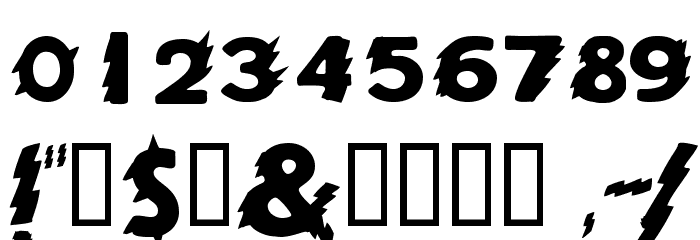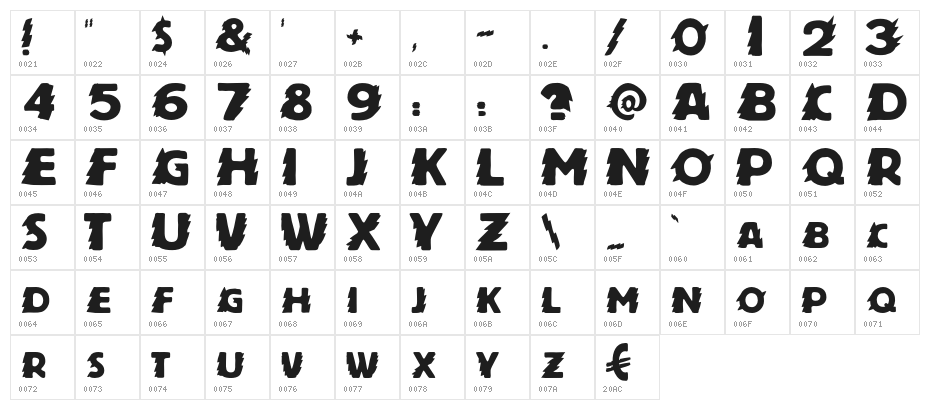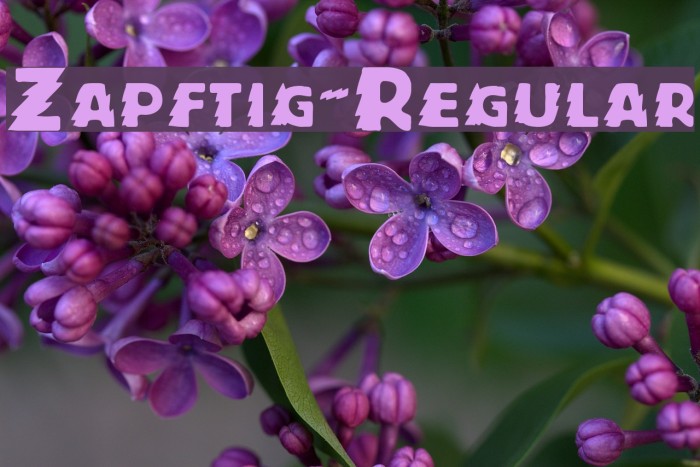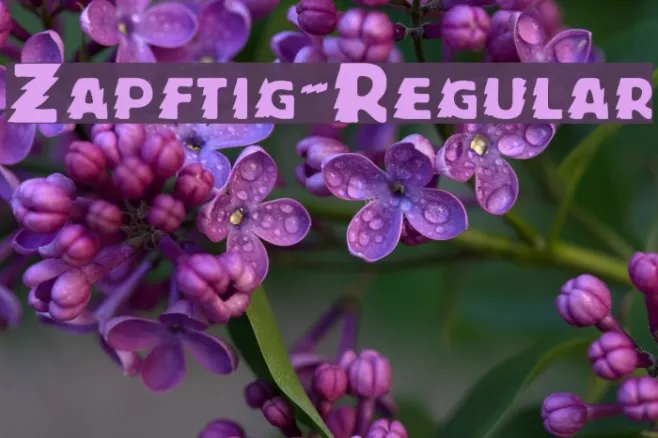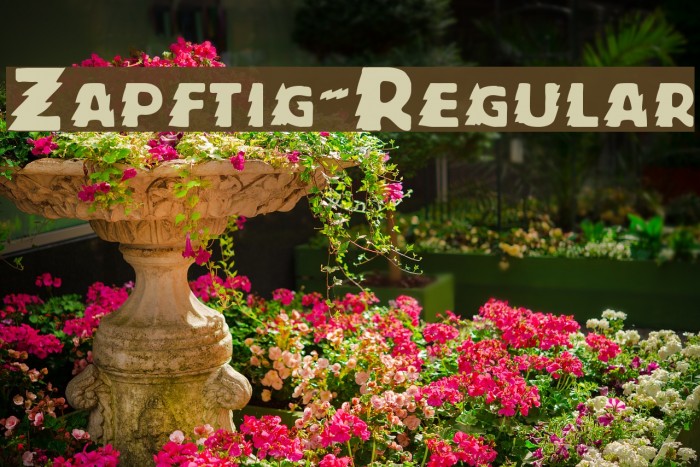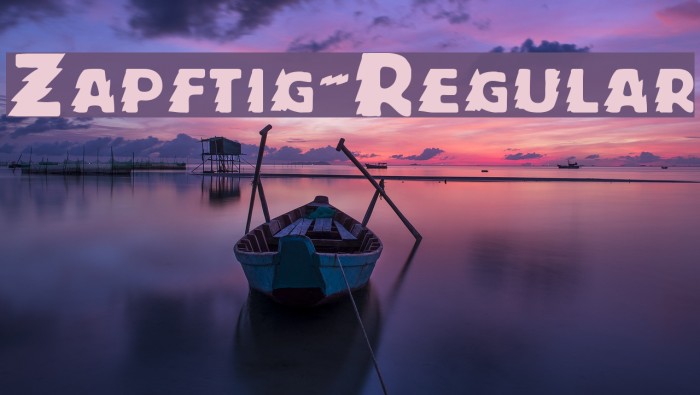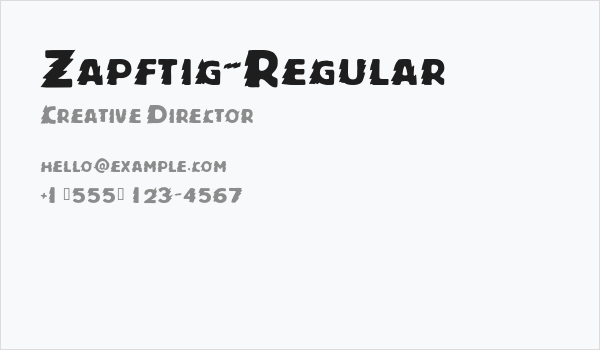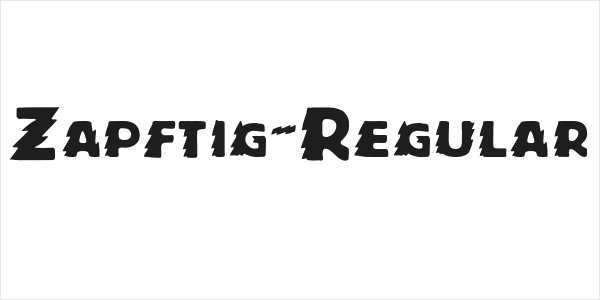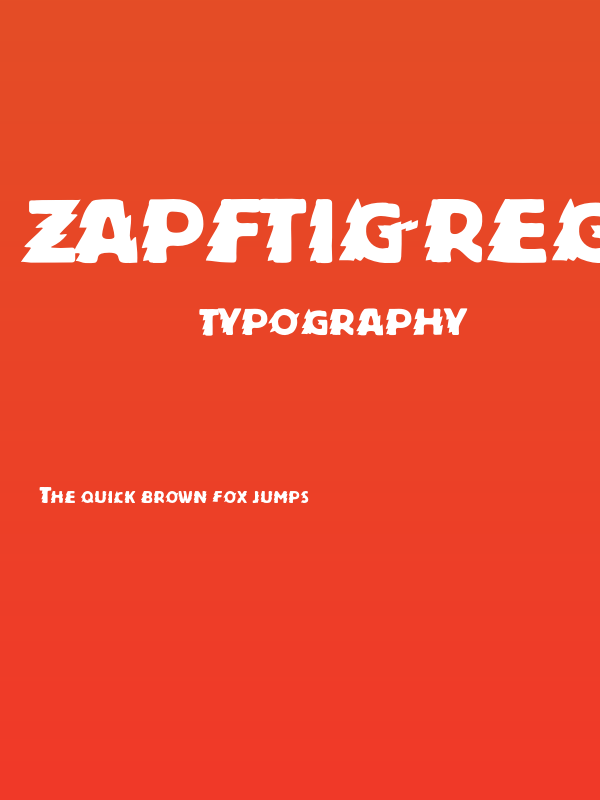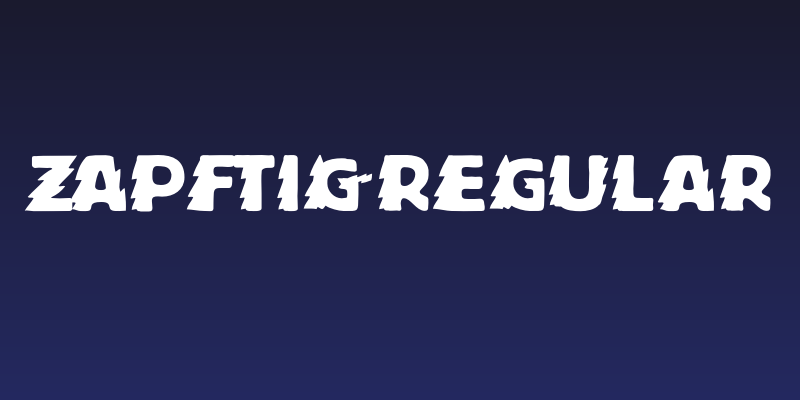
Zapftig-Regular Font
Zapftig-Regular Description
This font features a bold and dynamic style with sharp, jagged edges that give it a sense of movement and energy. The characters are thick and robust, with a unique design that makes each letter stand out. The uppercase and lowercase letters maintain a consistent style, while the numbers and special characters follow the same bold and edgy aesthetic. This font is eye-catching and would be suitable for projects that require a strong visual impact.
| Proposed Projects | Ideal for posters, logos, headlines, and any design that needs a bold, energetic look. |